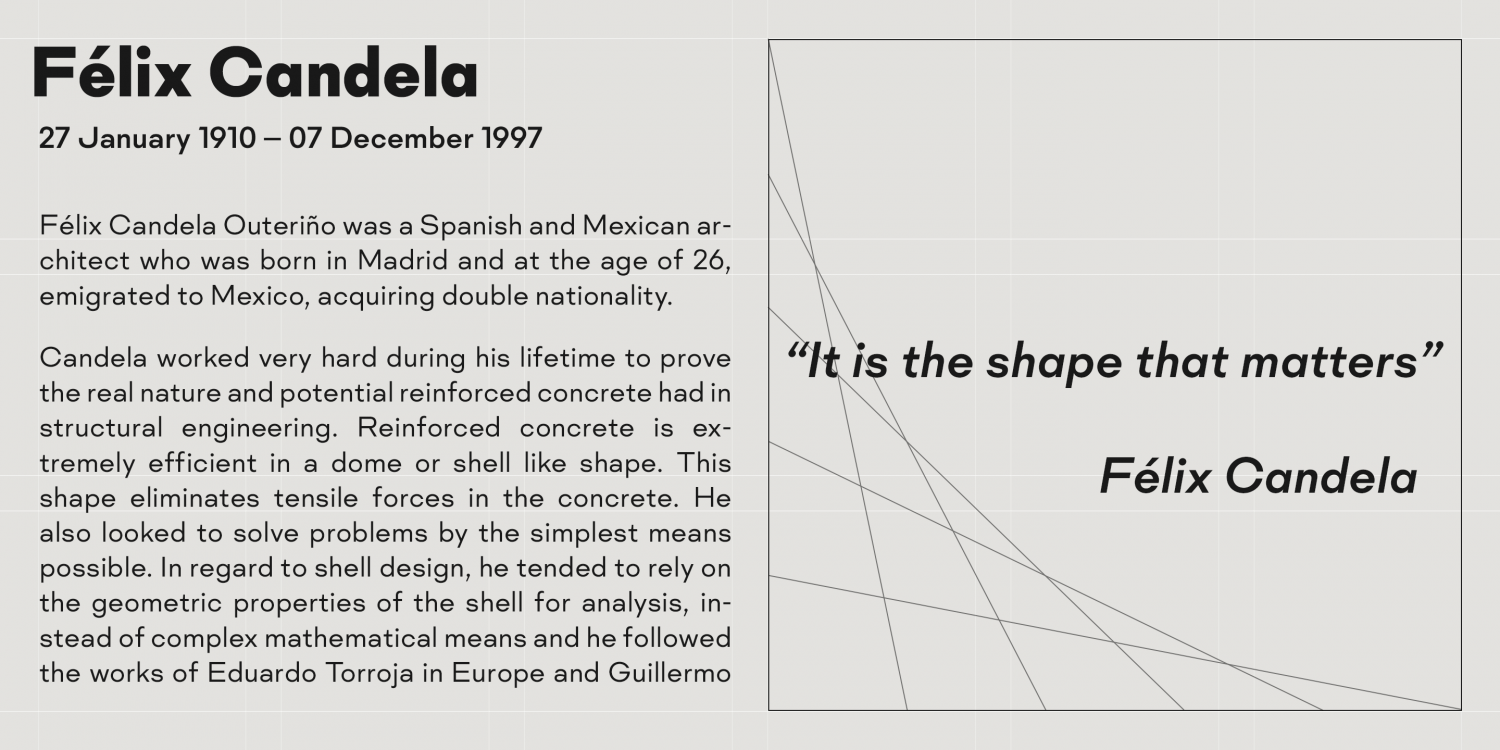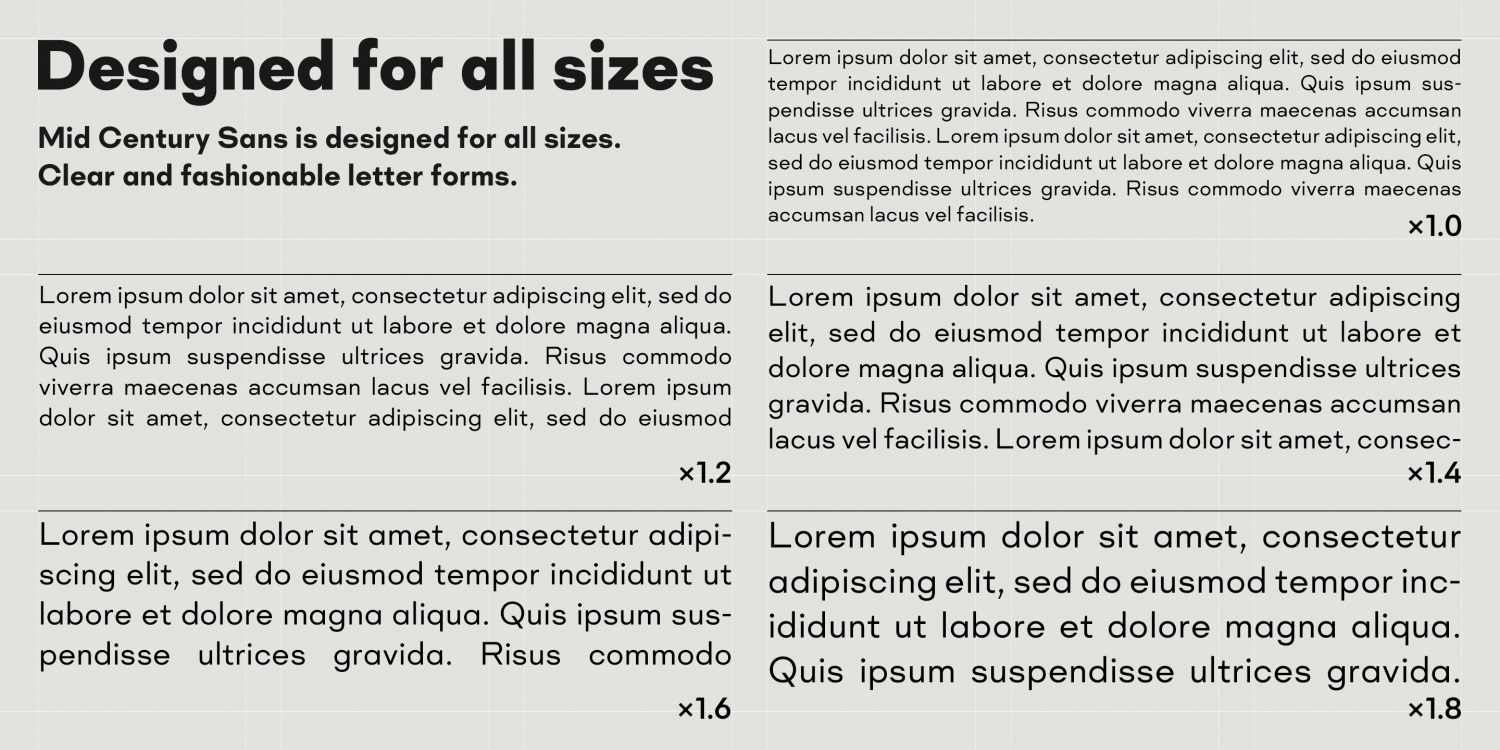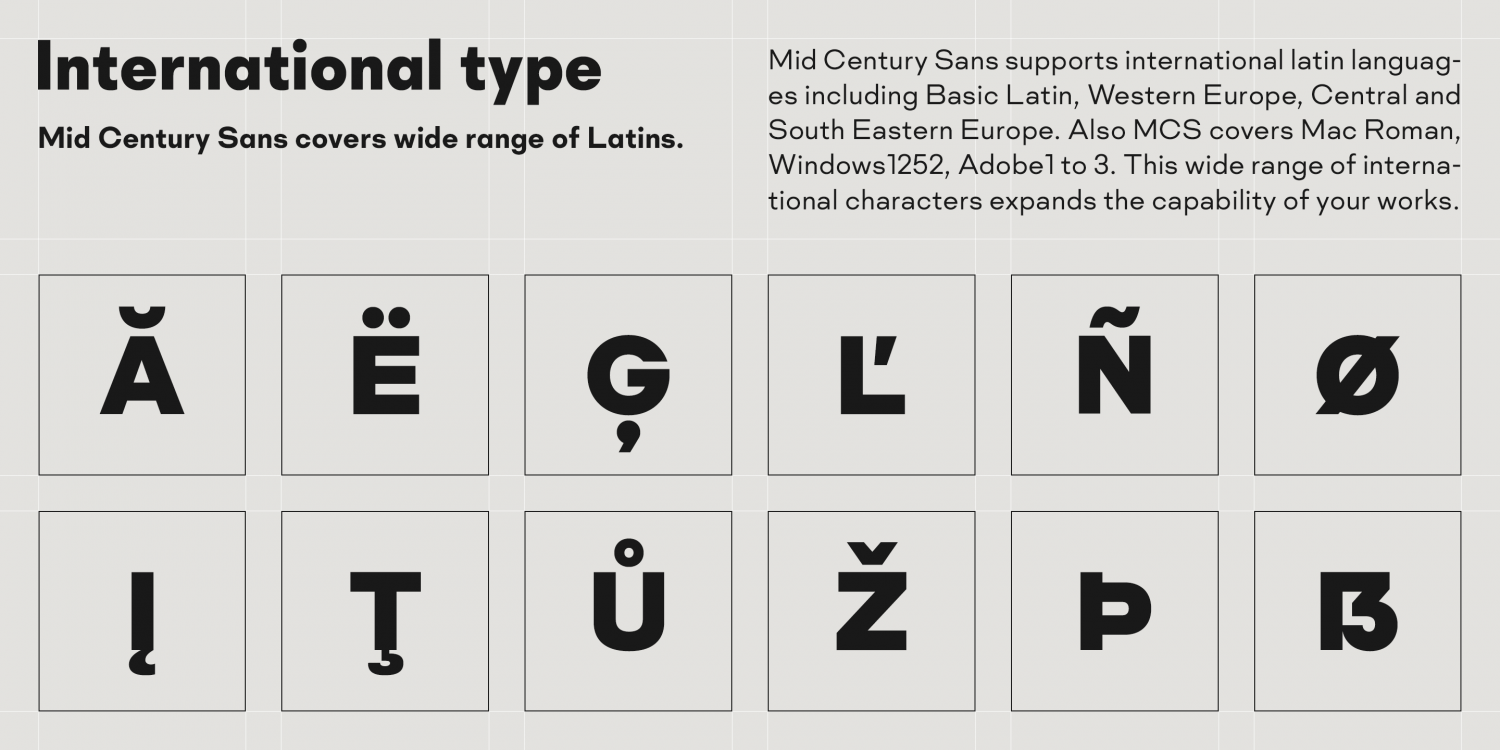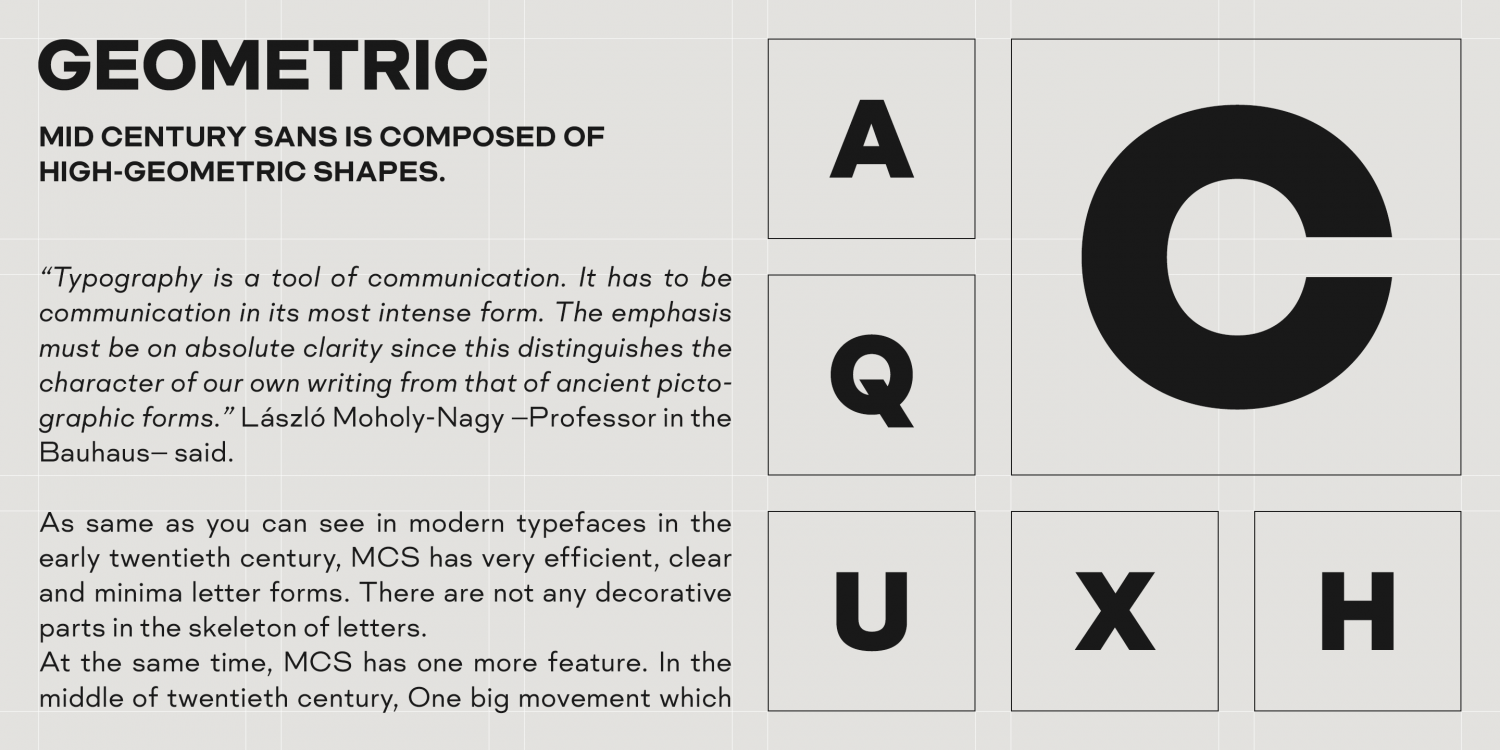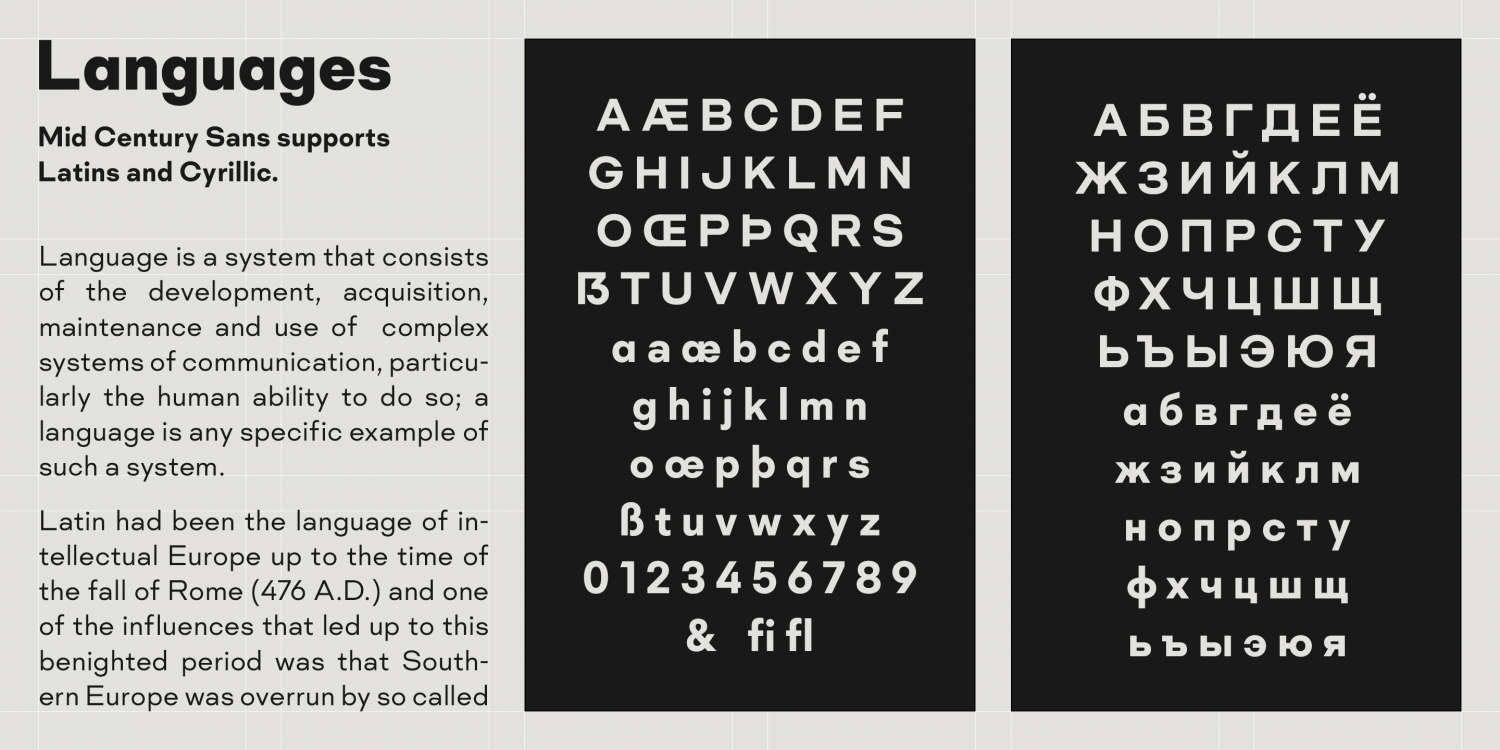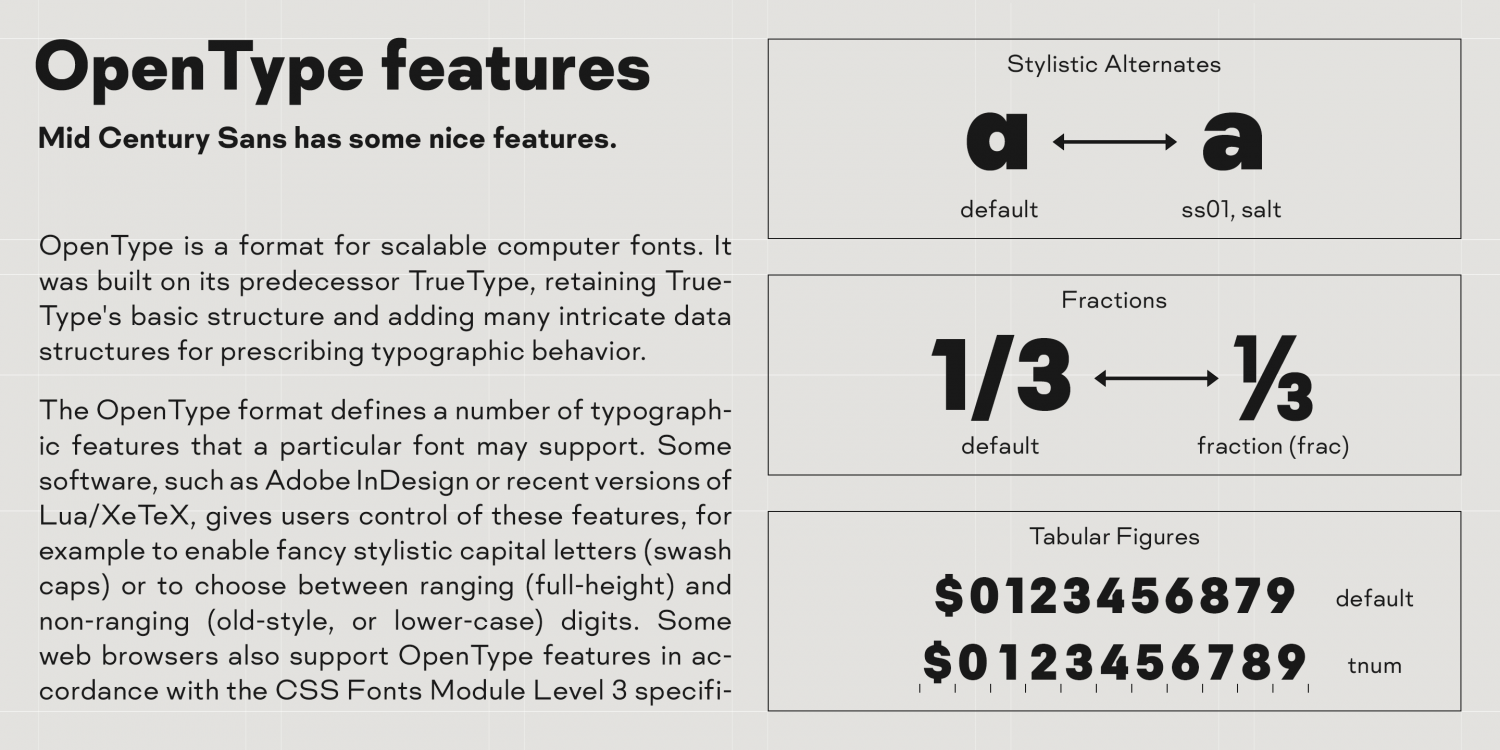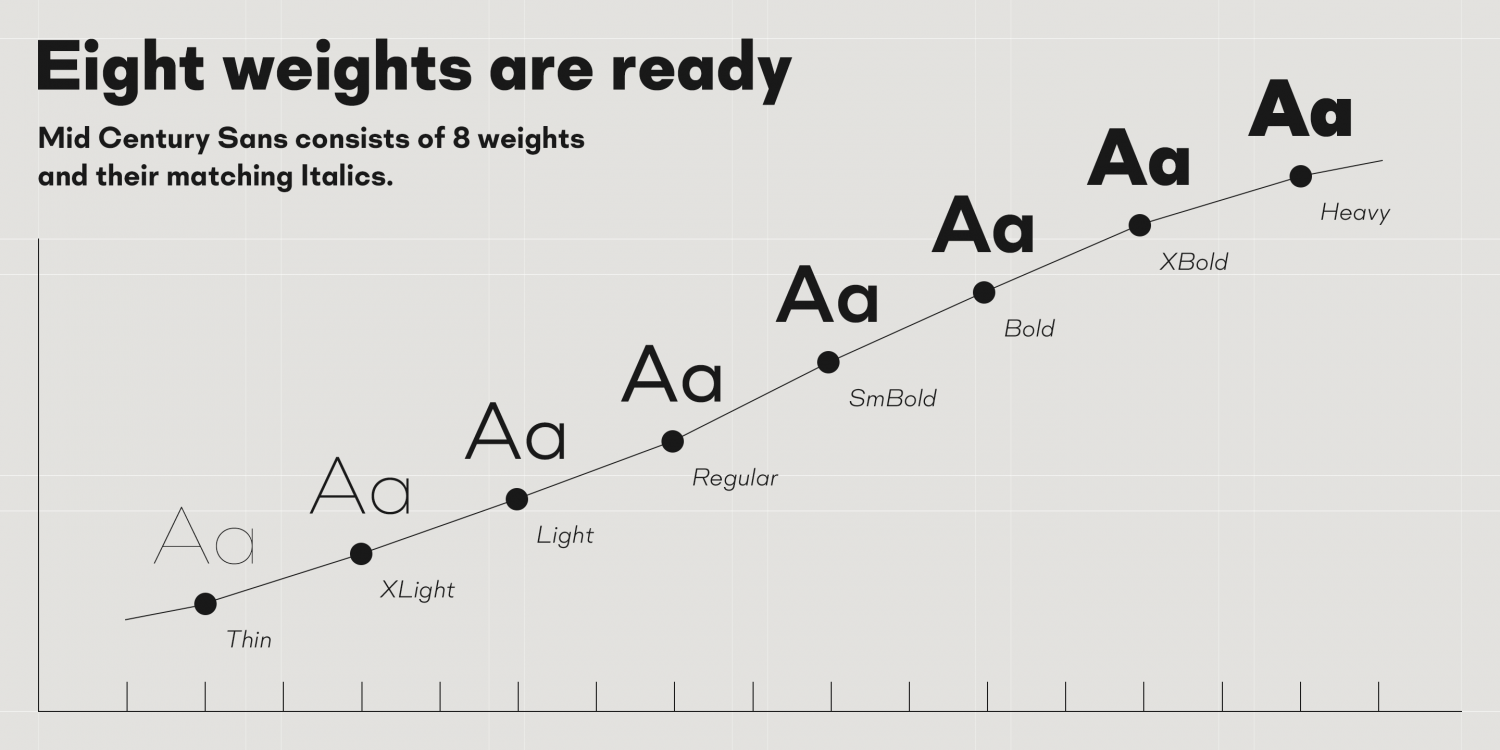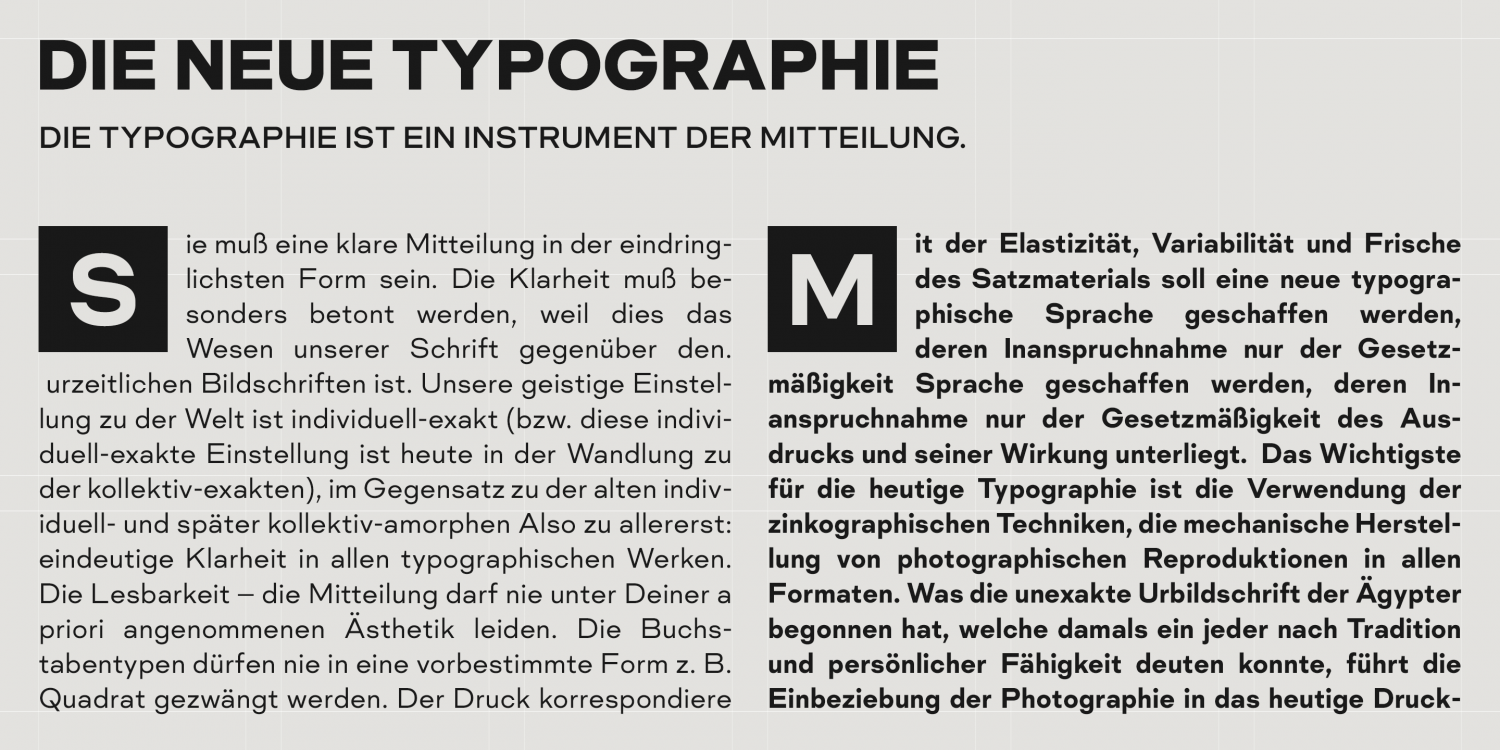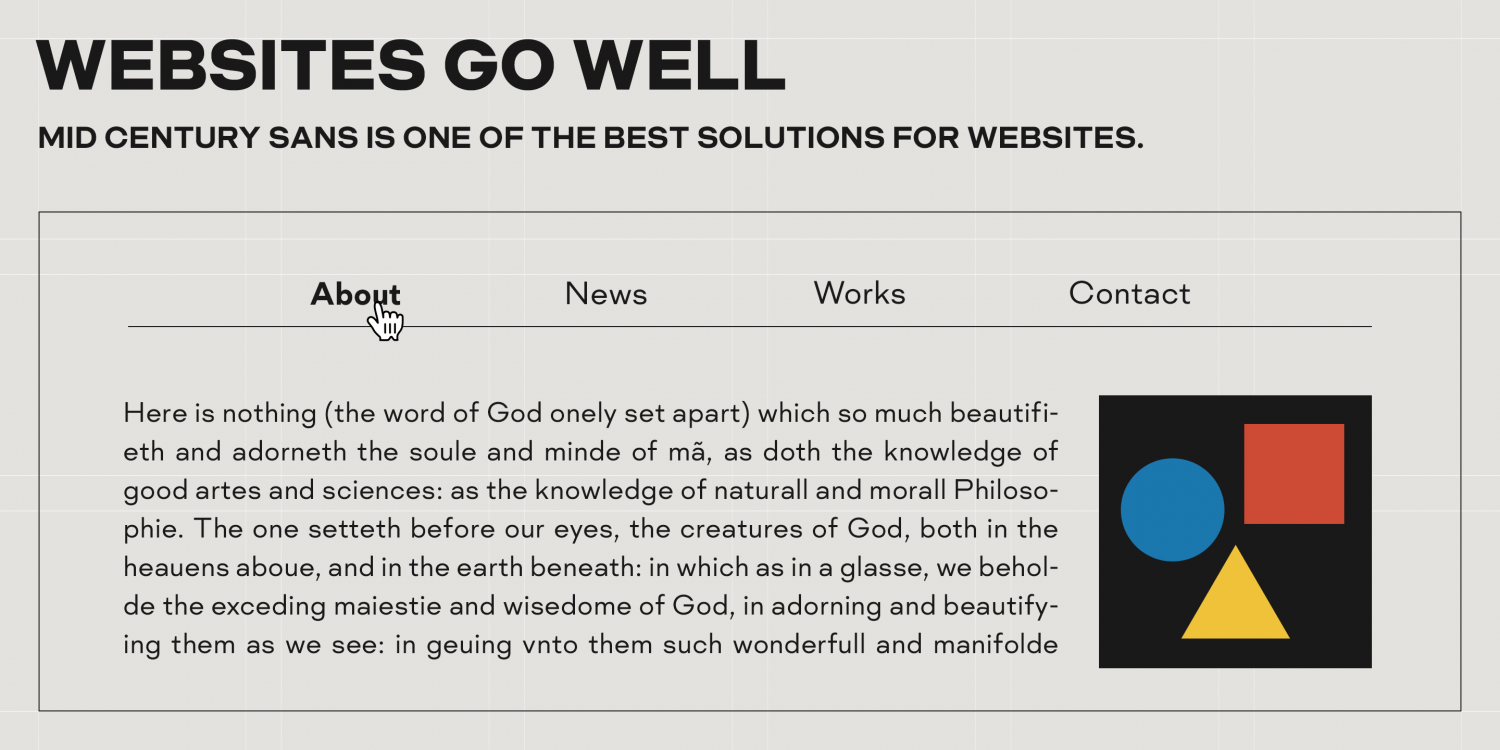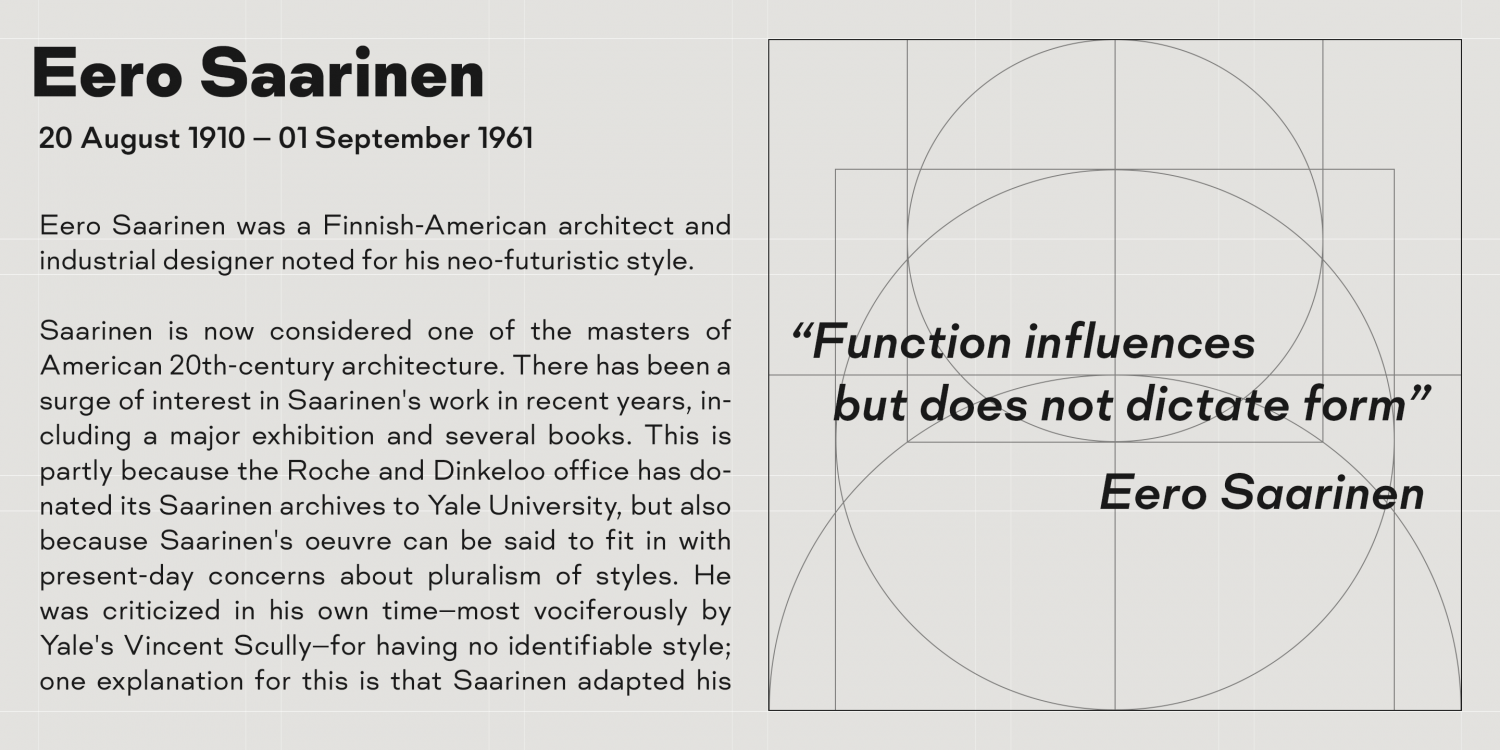
Mid Century Sans
Buy NowMid Century Sans (MCS) is a typeface built on the foundation of highly geometric shapes.
László Moholy-Nagy, a renowned Bauhaus professor, once said:
“Typography is a tool of communication. It has to be communication in its most intense form. The emphasis must be on absolute clarity, since this distinguishes the character of our own writing from that of ancient pictographic forms.”
In the same spirit as early twentieth-century modern typefaces, MCS features clean, minimal, and highly efficient letterforms, stripped of any decorative elements. Every glyph is designed with clarity and functionality at its core.
But Mid Century Sans offers more than just modernist precision.
In the mid-20th century, a design movement known as Mid-Century Modern emerged—an American interpretation of the International and Bauhaus styles. This movement introduced a softer, more organic, and less rigid aesthetic. It was stylish, accessible, and warmly human.
Mid Century Sans blends the clarity of Bauhaus modernism with the charm of Mid-Century Modern design. While its basic forms are geometric, the strokes are infused with a friendly, human touch—creating a typeface that feels both modern and approachable.
The family includes eight weights with matching italics, making it highly versatile across various applications.
It supports a wide range of international Latin and basic Cyrillic languages, including Basic Latin, Western, Central, and South-Eastern European scripts. Encoding support includes Mac Roman, Windows-1252, and Adobe Latin 1–3, ensuring seamless use across global platforms.
For advanced typography, the lowercase “a” includes a stylistic alternate, accessible via OpenType features.